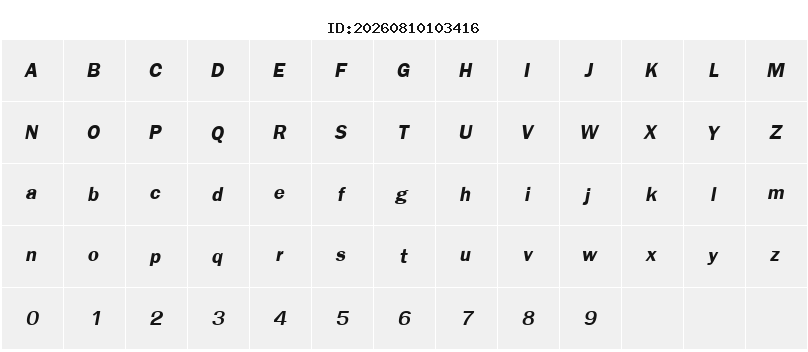
P5 FreesiaUPC Preview
• Font Name: P5 FreesiaUPC
• Font ID: FontMonger:FreesiaUPC Bold Italic
• Full Font Name: P5 FreesiaUPC Bold Italic
• PostScript Name: FreesiaUPCBoldItalic
P5 FreesiaUPC.ttf is a modern, elegant sans-serif font designed for ultimate readability and visual harmony. Perfect for branding, headlines, web design, and print materials.